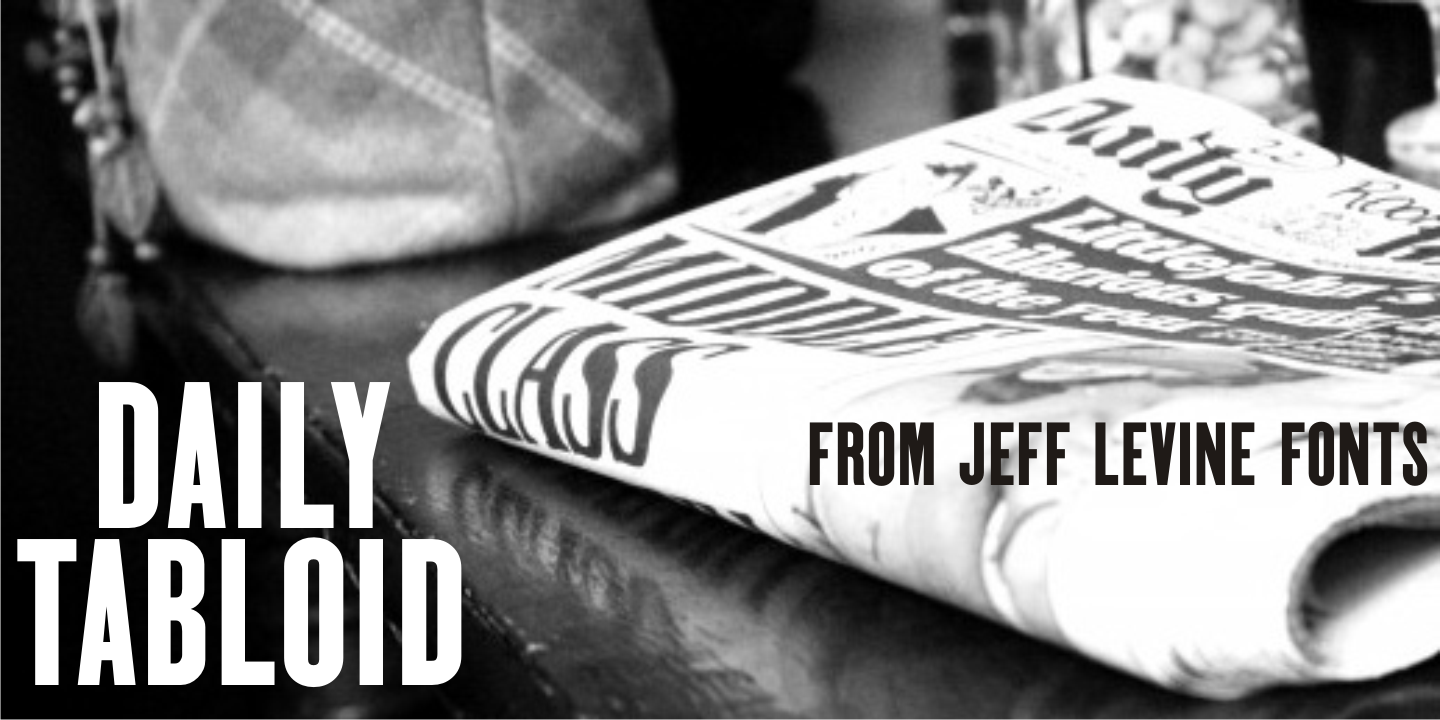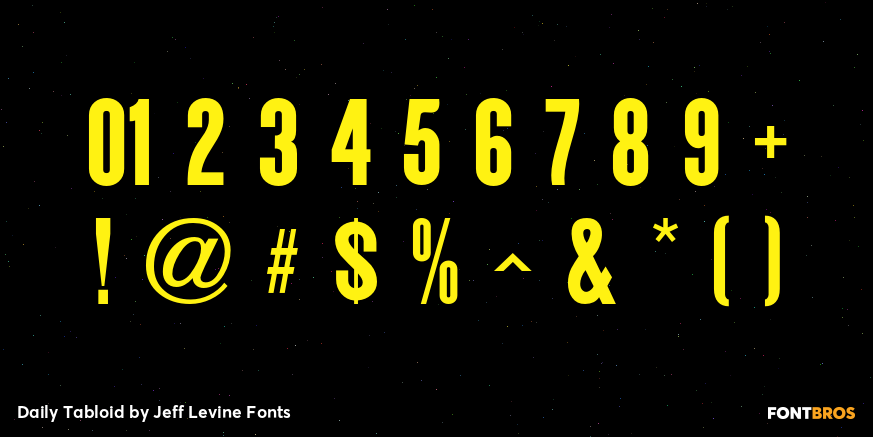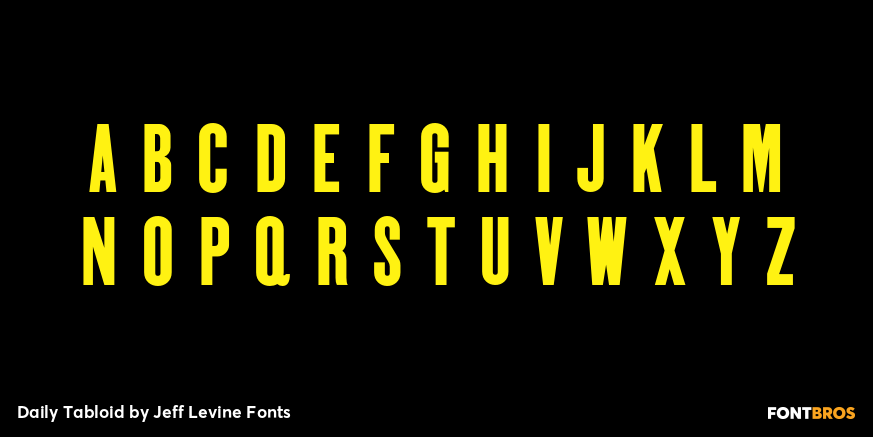
Daily Tabloid
Daily Tabloid JNL was redrawn from a set of wood type that was popularly used for newspaper headlines, posters, broadsides and the like.